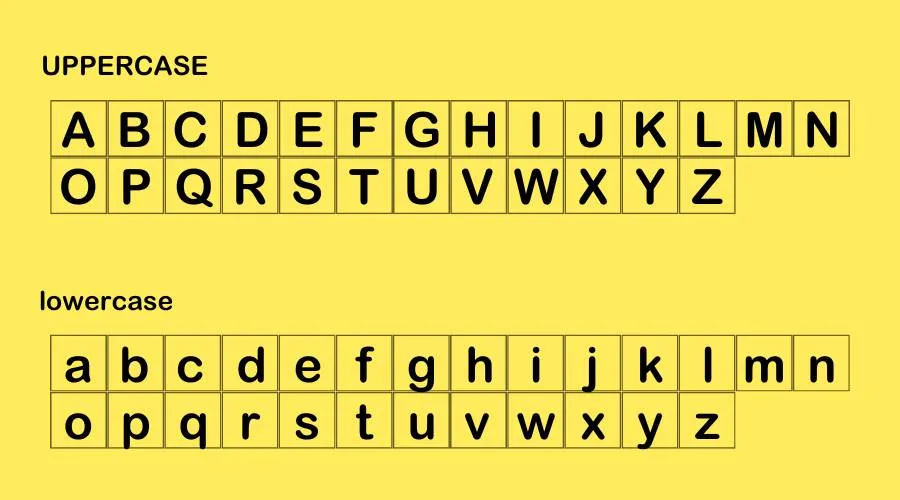
About Arial Rounded Mt Font
Arila Rounded MT Font is a member of the Arial Mt Font, the largest sans-serif font family. Robin Nicholas is the designer of this product, more than one million people use this font, which is listed in Google Fonts as a top font and you can easily download its free version from this website.
The design is clean and modern, the layout is very elastic. Try it out in your next project. Small sizes are easily read with their wide characters and large x-heights.
It makes the characters fit better on a screen since they are slightly condensed. It has many similar fonts are available on this unique site, but the best similar font to this texture is fink heavy font. It has an online font generator that can help you create interesting characters.
It is one of the most popular retro fonts and is used as the body text font on many websites. Because this font is specifically designed to work on the web. It can be used on any website. Print designs, such as publications, books, and reporters can also get benefit from this font.